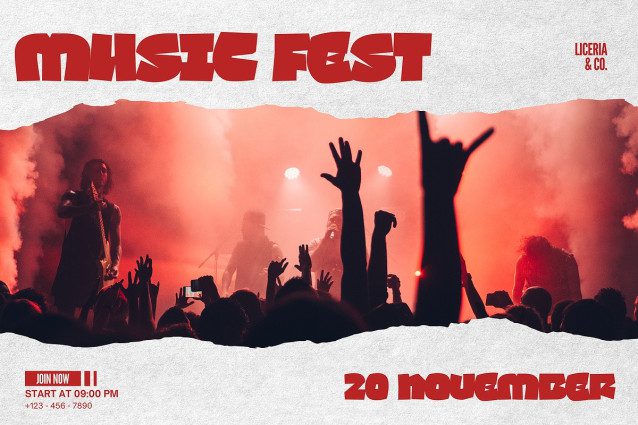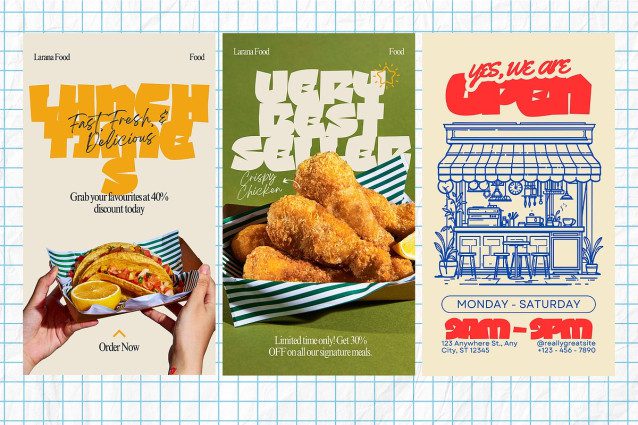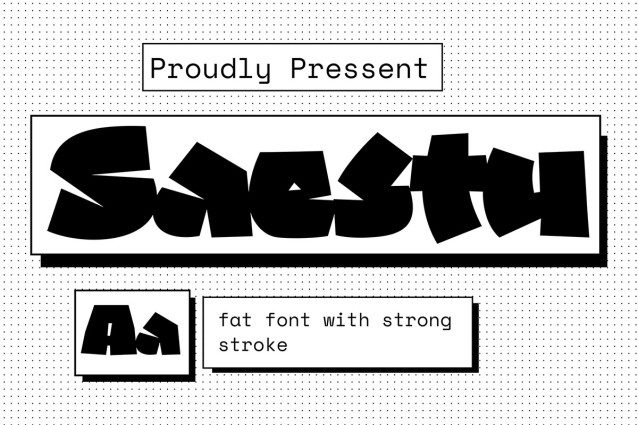
Saestu Font
Saestu Font is a bold display font with chunky and asymmetrical letterforms that instantly grab attention. Its strong strokes and playful shapes make it perfect for creating energetic and eye-catching designs. Saestu works great for logos, posters, packaging, apparel, and social media graphics, bringing a retro-modern and youthful vibe. Whether you’re building a brand or designing promotional materials, this font delivers a fun yet powerful statement.